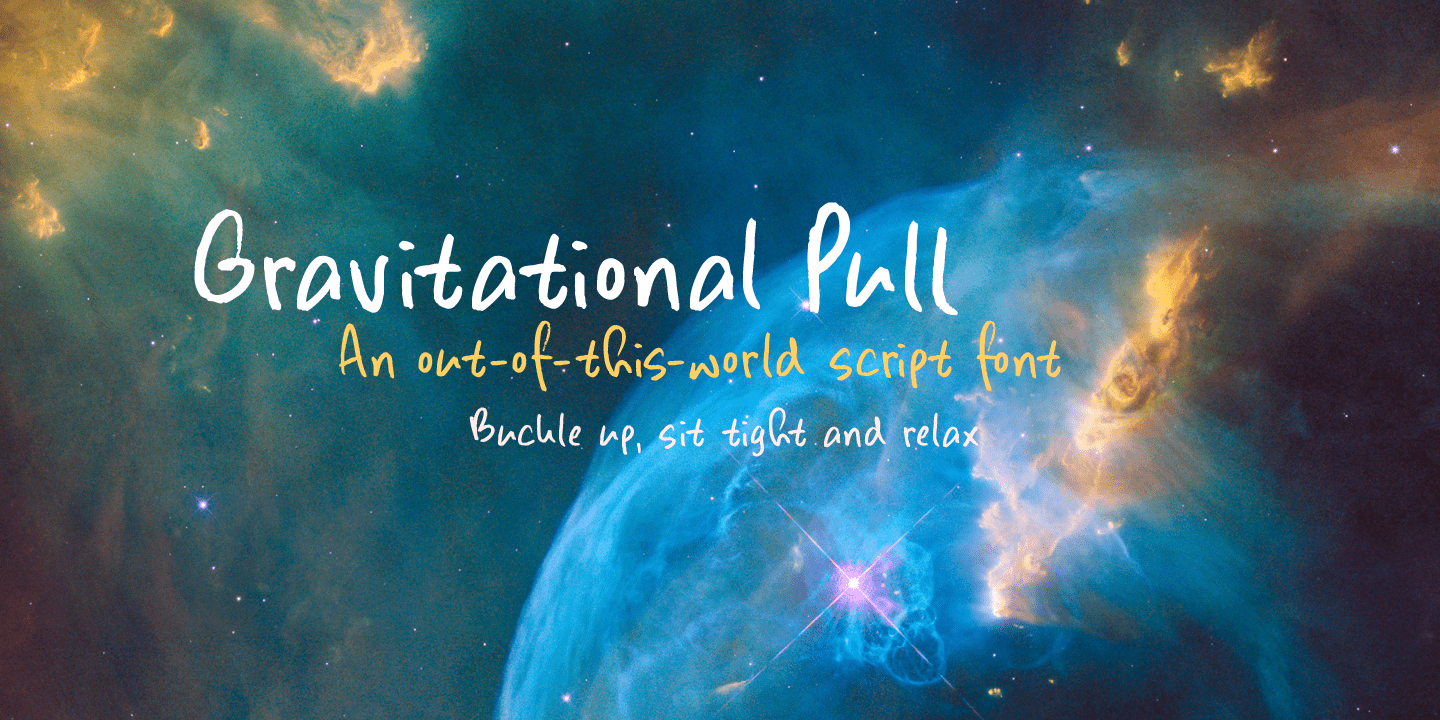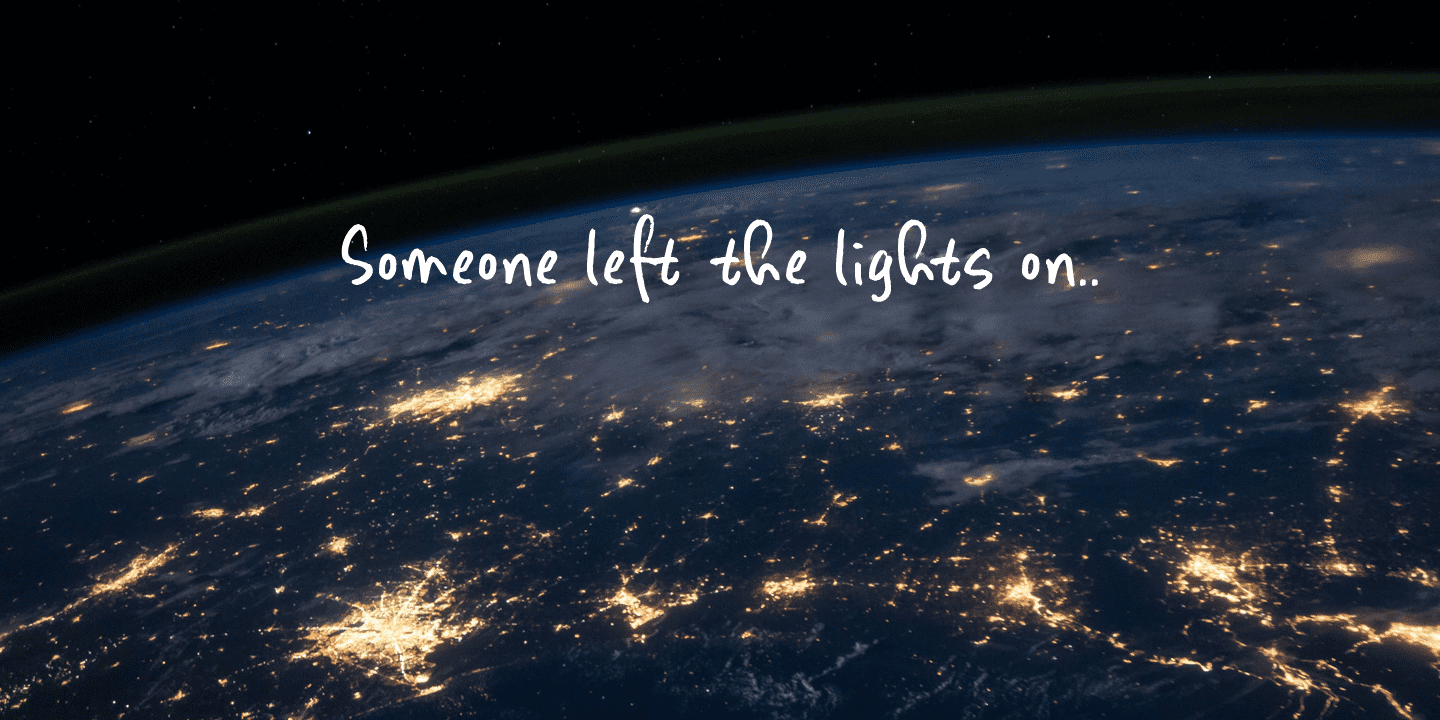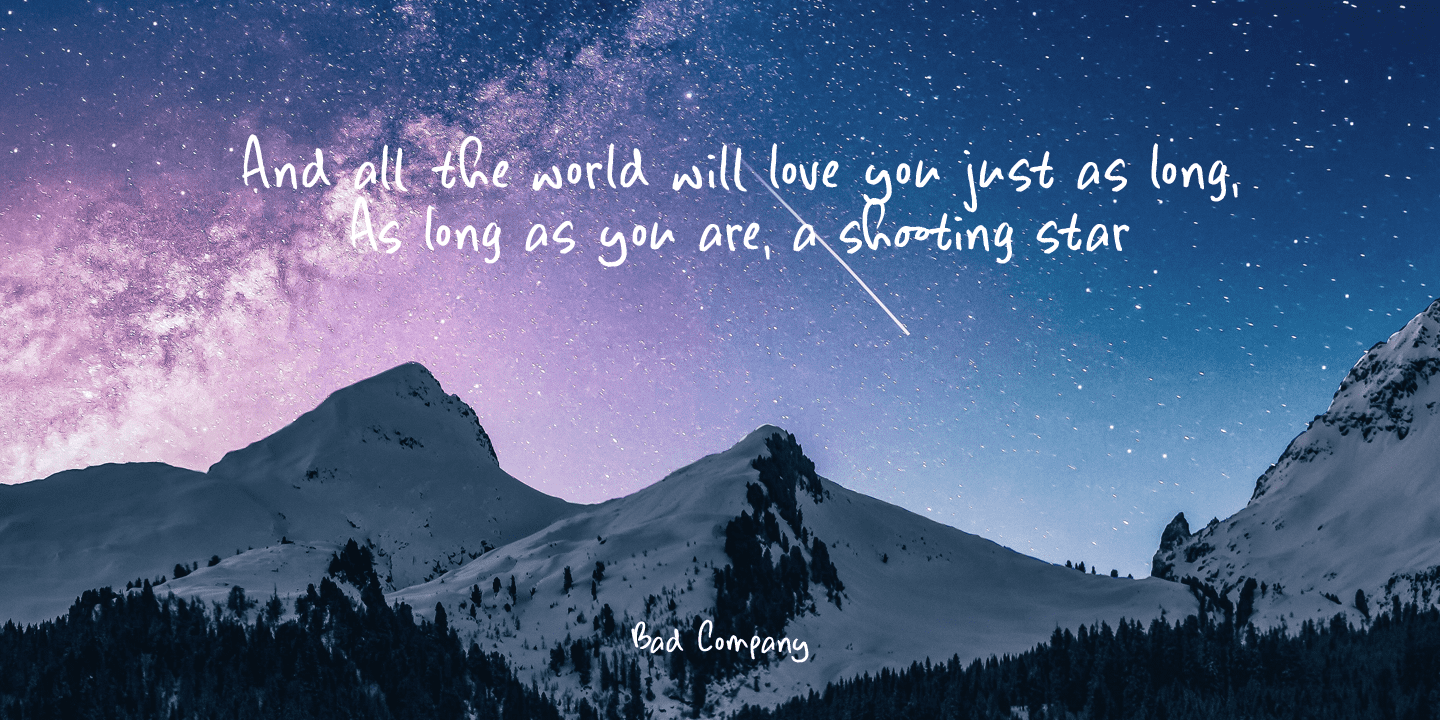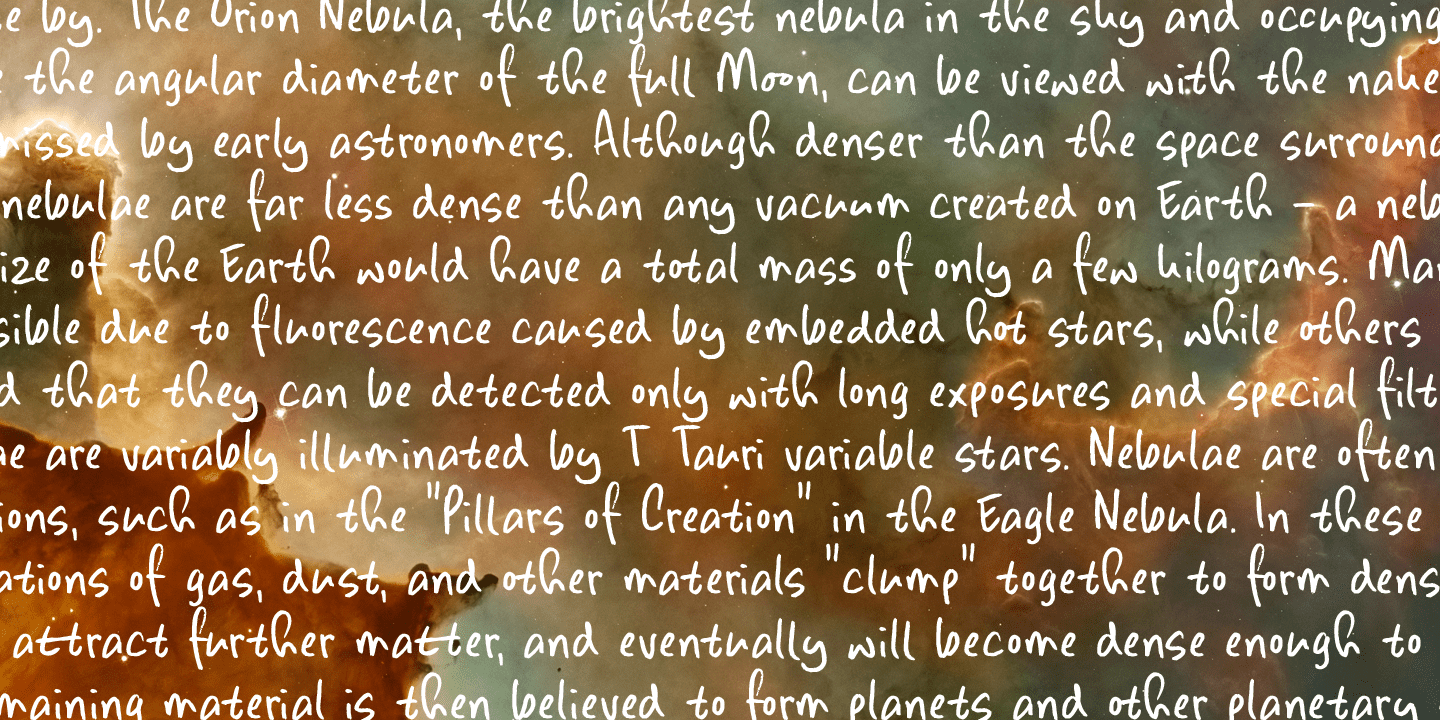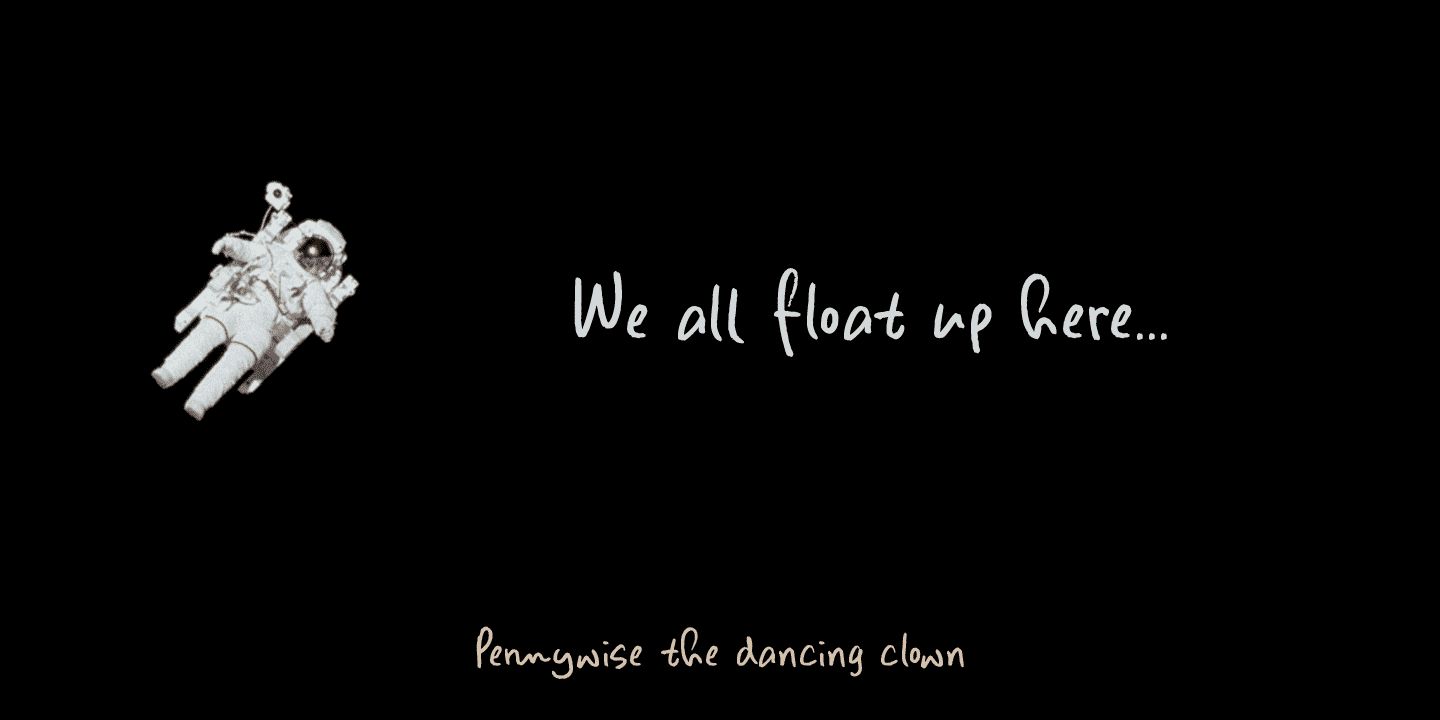
Gravitational Pull is a messy pencil script font. It comes with a whole bunch of double-letter ligatures and some really wonky glyphs. And no, in its virtual form, this font is not subject to the Earth’s gravitational pull.